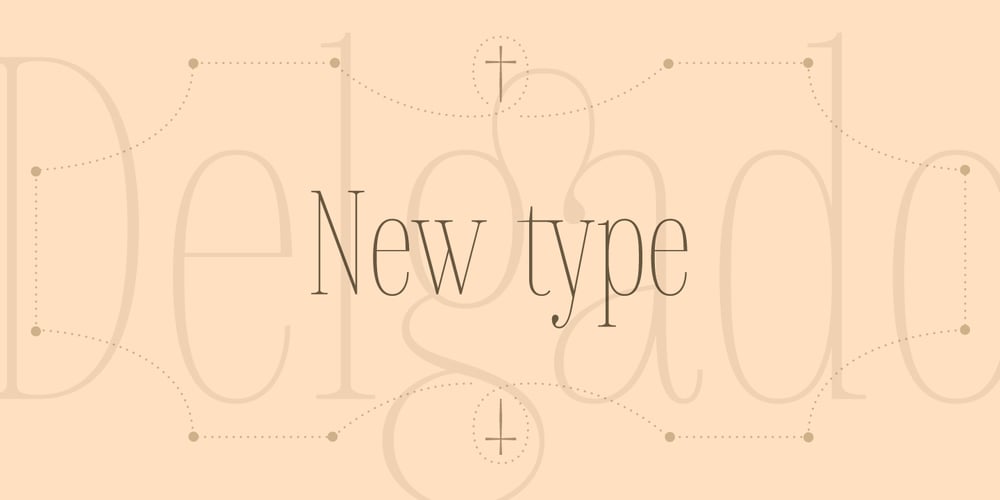
Delgado Font Family was designed by Roman Shchyukin and published by Gaslight. Delgado contains 1 styles and family package options. Delgado is a narrow elegant serif font with drops. Delgado is a good choice for large journal titles and small amounts of text. This font was made for one of the independent magazine – but it all went wrong and Delgado was freed from the shackles and went to the free swimming. A large number of both Latin and Cyrillic ligatures makes Delgado playful and at the same time it remains faithful. Delgado received a citation for excellence in type design the in international competition “Modern cyrillic 2014”.